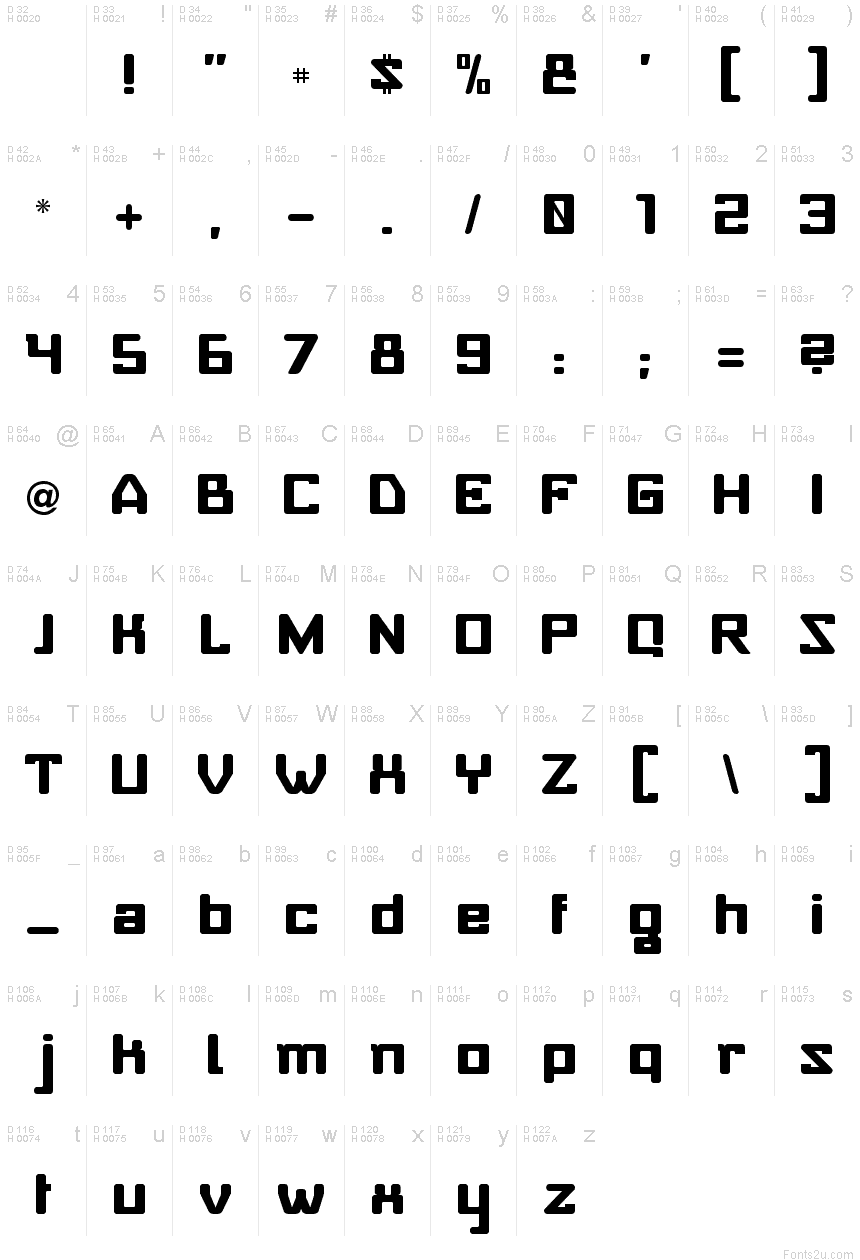
Baby Universe
Baby Universe font by Levi takes a chunky, rounded techno look and softens it with friendly corners and wide apertures. The letters feel like modular blocks from a retro console, giving headlines and logos a playful sci‑fi tone while remaining clean and easy to read. It’s a free font that works best at larger sizes where its geometric curves and squared counters can really be appreciated.
This free font brings a futuristic mood without becoming harsh or mechanical, which makes it ideal for game titles, tech branding, children’s science projects, posters, and bold app interfaces. Use Baby Universe for short phrases or wordmarks and pair it with a simple neutral sans serif for supporting text. Set it with generous tracking to emphasize its blocky rhythm and keep layouts feeling open and airy.